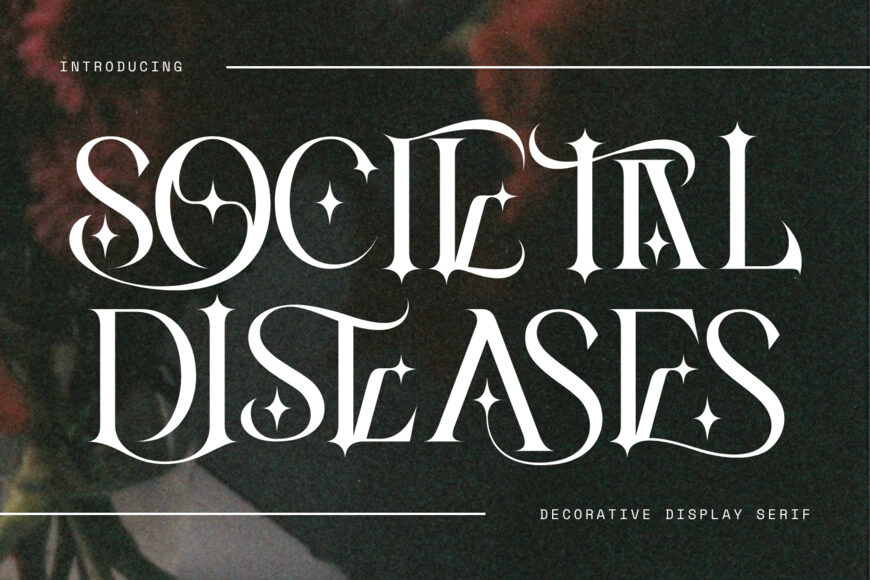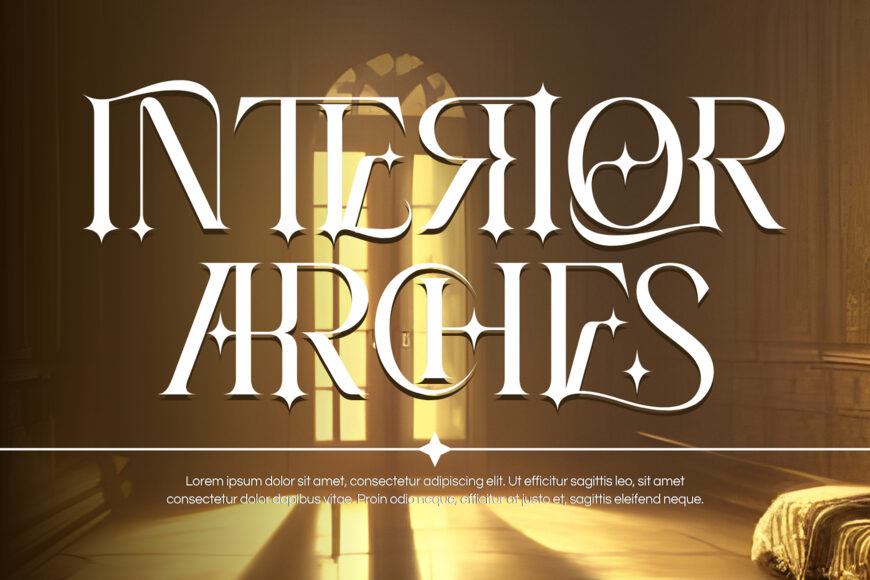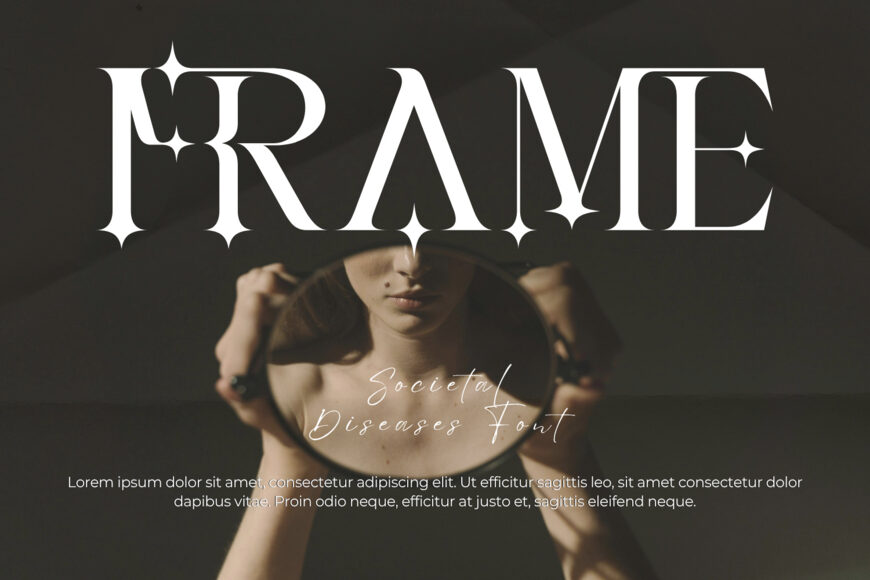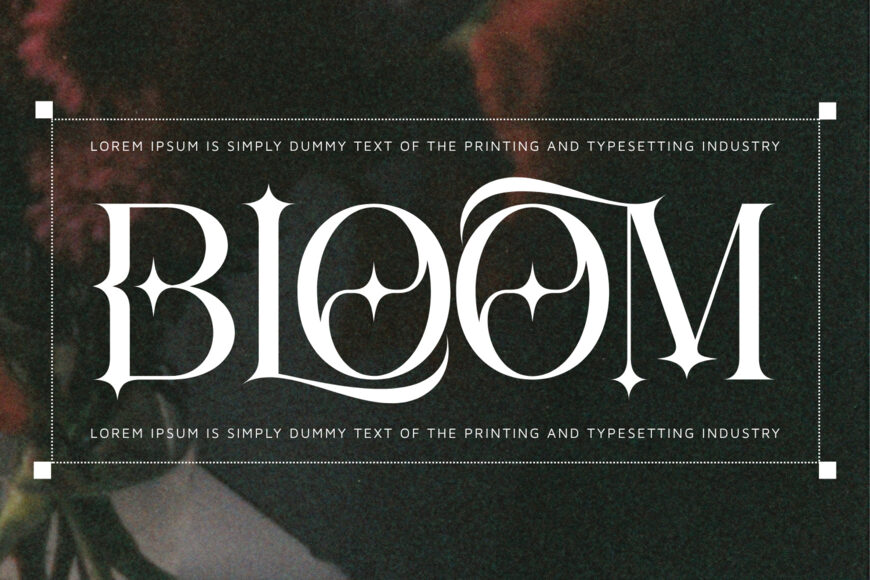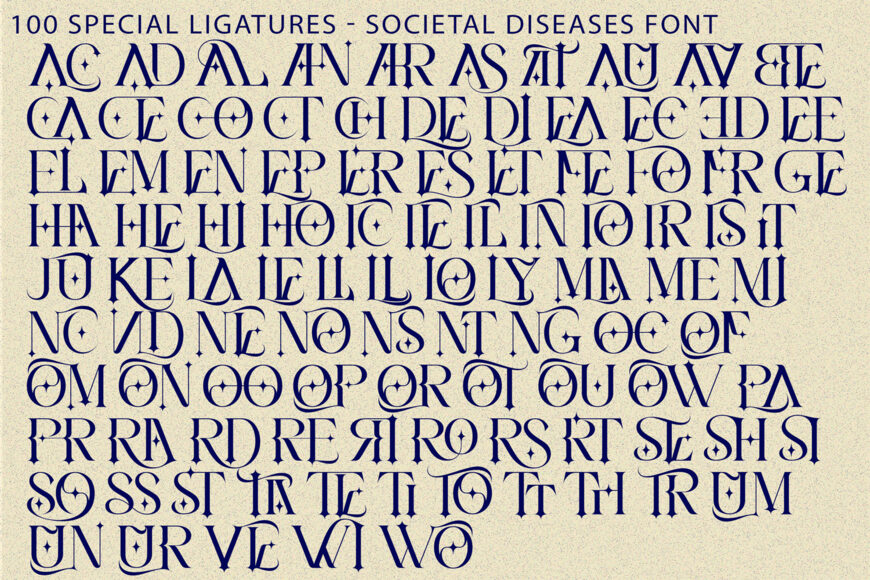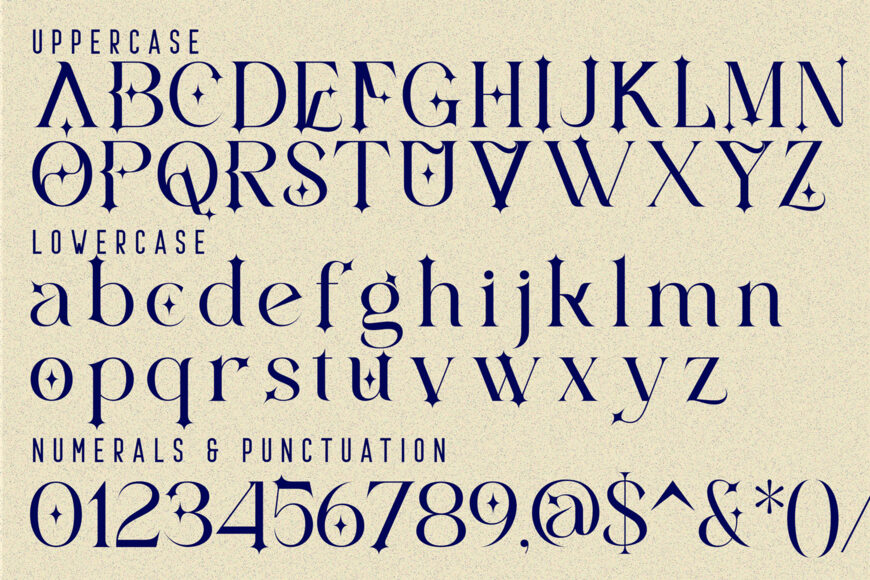
Societal Diseases Font
Societal Diseases font combines Art Nouveau curves with sharp serifs and star motifs, giving it a magical and sophisticated feel. Each letter radiates an enchanted energy, turning titles into custom artwork.
Perfect for dark fantasy and luxury designs, it’s ideal for book covers, branding, and editorials that require a touch of mystique and glamour. Its hypnotic charm elevates any creative vision, making it a top choice for those seeking a unique and captivating visual style.